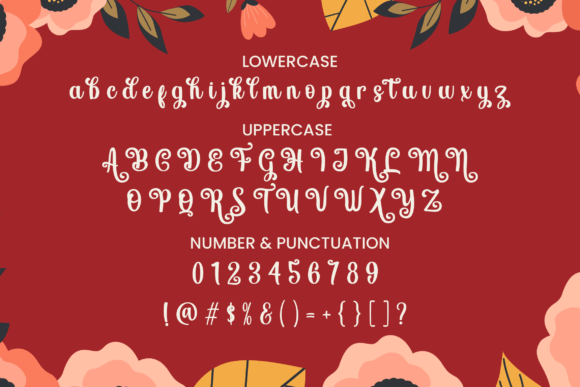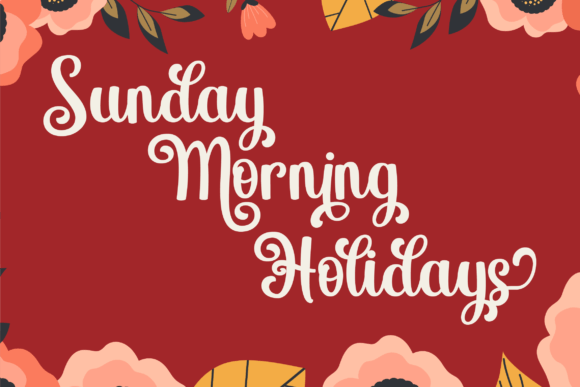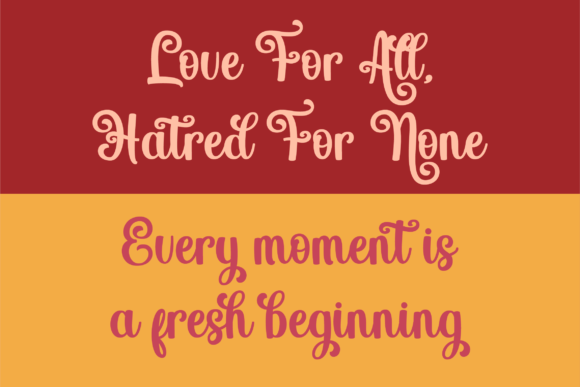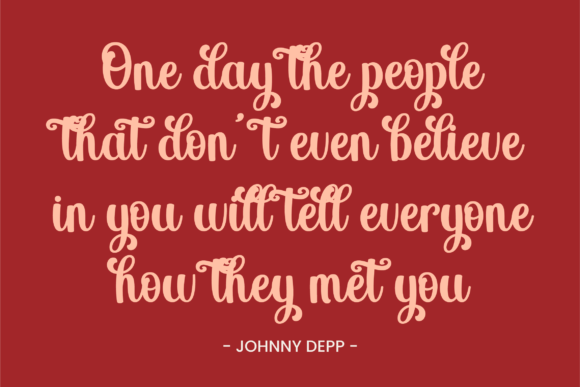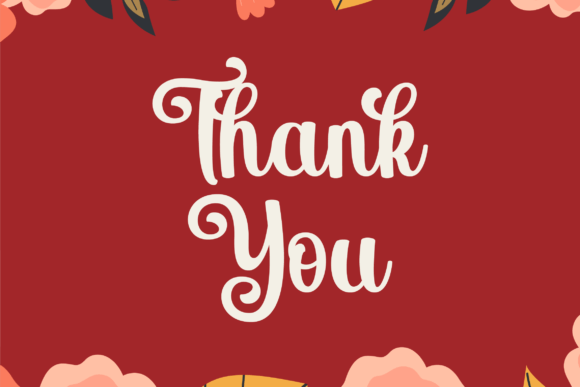
Introduction to Holymast Font
As a designer, have you ever found yourself staring at a blank canvas, trying to come up with the perfect idea for a creative project? The struggle is real, but sometimes all it takes is a spark of inspiration to set your imagination ablaze. For me, it was discovering the Holymast Font, a beautiful and sweet handwritten font that has been a game-changer in my design workflow.
With its fresh, clean, and elegant aesthetic, the Holymast Font is perfect for both formal and informal projects, making it a valuable addition to any designer’s toolkit. Whether you’re working on a high-quality design resource or need a free download for a quick project, this font is sure to impress. Plus, its transparent background makes it easy to work with, and its PUA encoding means you can access all of the glyphs and swashes with ease.
- High-quality, professional font suitable for various creative projects
- Comes with a transparent background, allowing for easy customization and integration into various designs
- Features a unique, modern design with a clean and elegant look, perfect for branding and marketing materials
Honest Review: Holymast Font
I recently had the chance to work with the Holymast Font in one of my creative projects, and I must say, it was a great experience. This font is perfect for those who are looking for a high-quality design resource.
What works well with the Holymast Font is its versatility. It comes in a variety of styles, making it suitable for both personal and professional projects. The font is also available for free download, which is a huge plus. Additionally, it has a transparent background, making it easy to work with in design software.
- ✨ Versatile font styles
However, there are a few limitations to keep in mind. The font may not be suitable for projects that require a lot of bold text, as it can get a bit difficult to read. Additionally, the font is not available in as many languages as some other popular fonts.
- ⚠️ Not suitable for bold text
- ⚠️ Limited language support
Tips for Getting the Most Out of Holymast Font
For the best results, use the Holymast Font on a high-quality design resource, such as a business card or brochure. The font’s transparent background makes it perfect for creating visually appealing designs. To get the most out of the font, experiment with different font sizes, colors, and styles to find the perfect combination for your creative project.